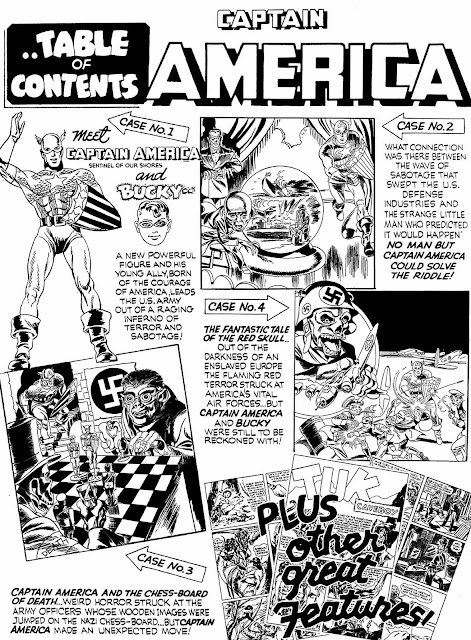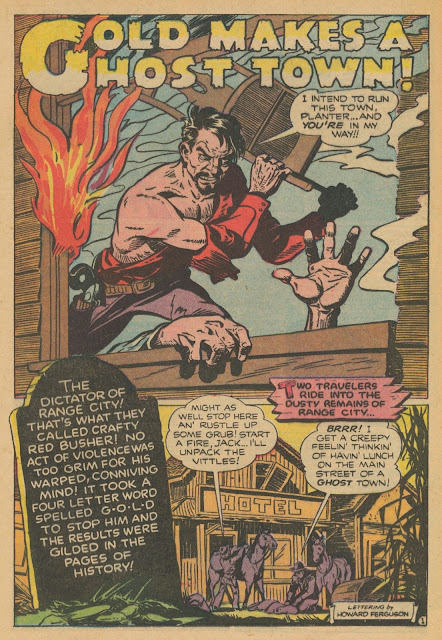
Howard Grant Ferguson was born on July 4, 1895, in Washburn, Wisconsin, according to his World War I and II draft cards. Ferguson’s full name was on his second World War card and Social Security application (at Ancestry.com) which had the birth year as 1896. The application also had the names of Ferguson’s parents, Grant U. Ferguson and Minnie A. Rettie. The St. Clair County, Michigan, Marriage Index, at Ancestry.com, recorded their marriage as December 23, 1891 in Fort Gratiot, Michigan. Grant’s parents were Charles Ferguson and Sally Spalding, and Minnie’s were William L. Rettie and Elsie Ogg.
Two weeks before Ferguson’s birth, the Wisconsin state census was enumerated on June 20. Only the name of the head of the family was recorded in the first column. The next section was Aggregate Population which was sub-divided into White and Colored, each with two columns labeled Male and Female. In the row with Ferguson’s father was the numeral one in the white male and female columns. The female was Ferguson’s mother. The third section was Nativity which was divided into eight countries. The numeral two was in the United States column for Ferguson’s father. The couple resided in the incorporated village of Washburn, Bayfield County, Wisconsin.
Apparently, the Ferguson family resided in Superior, Wisconsin for a period of time. Ferguson’s father was listed in the 1899 Superior city directory: “Ferguson, Grant U agt C St P M & O Ry, [agent with the Chicago, St. Paul, Minneapolis and Omaha Railway] Itasca, r 1st n e corner for Hennepin av”. Ferguson’s maternal grandfather was a clerk at the same railway and had the same address.
Ferguson and his parents have not been found in the 1900 U.S. Federal Census. The 1900 Superior directory said Ferguson’s father had moved to Duluth, Minnesota. The census and directory said Ferguson’s maternal grandfather was in Superior as a watchman with the Itasca Elevator Company. He boarded at the Railroad Hotel.
In 1901, Ferguson’s father, a Northern Pacific Railway clerk, and maternal grandfather, a watchman, were Superior residents at 290 West 4th Street. The same address for them was printed in the Superior Times, March 8, 1902.
The 1902 and 1903 Superior directories listed the address, 1612 Belknap, for Ferguson’s father and maternal grandfather. Their address was 1513 John Avenue in the 1904 directory.
The 1905 Wisconsin state census was enumerated on the first day of June. Ferguson’s maternal grandmother was the head of the household. The census listed Ferguson and his mother, Marion, with the Rettie surname. Ferguson was erroneously recorded as his grandmother’s son. The trio and a servant were Superior residents.
The 1905 Superior directory said Ferguson’s father moved to Duluth, and had this line about his maternal grandfather, “Wm L Rettie, died Jan 12, ’05, age 62”. Ferguson’s maternal grandmother’s address was 1513 John Avenue in 1905 and 1906. The 1907 Superior directory said she moved to Hibbing, Minnesota.
It’s not clear when and where Ferguson’s parents divorced. According to Duluth city directories, Ferguson’s father was a clerk with the Duluth & Iron Range Railroad. He resided on West Superior from 1907 to 1909. From 1910 to 1914 he was on West Fourth Street.
Ferguson’s mother married Arba Hawley, a bookkeeper, who was a Duluth resident. The 1907 city directory listed him and Ferguson’s maternal grandmother at 229 5th Avenue East. Their address in the 1908 and 1909 directories was 190 West Third.
The 1910 census was enumerated in April. It recorded Ferguson, his mother, maternal grandmother, step-father and three-year-old step-brother in Duluth at 131 West 3rd Street.
Ferguson attended the East End School Washington and graduated from the eighth grade on June 16, 1910. The Duluth News Tribune said Ferguson gave a recitation, “International Peace”, at the ceremony.
Ferguson was a freshman at the Duluth Central High School according to the 1911 Zenith yearbook.
The 1911 Duluth directory said Ferguson’s family moved to Detroit, Michigan.
The 1912 Detroit city directory listed Ferguson’s step-father and maternal grandmother at 971 Woodward Avenue. His step-father was a salesman with the United Realty Company. Their address in the 1913 directory was 830 Woodward Avenue.
In the 1914 Detroit directory Ferguson was listed as a student who resided at 931 Jefferson Avenue. The 1915 directory is not available. In 1916 he lived at 43 Center and worked as a stock keeper.
According to the Michigan marriage records at Ancestry.com, Ferguson married Ida Trombley on December 26, 1916 in Detroit. His occupation was clerk.
On June 5, 1917, Ferguson signed his World War I draft card. He, his wife and baby lived at 148 Chene Street in Detroit. Ferguson was employed by the drug manufacturer “Dae Health Laboratory”. Ferguson was described as short, slender build with blue eyes and light-colored hair.
A 1918 Detroit directory said Ferguson was a shipping clerk at “Dae Health Laboratories (Inc)”. One of its major products was Nuxated Iron. The American Medical Association’s critical analysis of Nuxated Iron was published in Nostrums and Quackery.
Ferguson’s address was 919 Jefferson Avenue in the 1919 directory which said he was a clerk. That address was recorded in the 1920 census. Ferguson was a telephone company clerk. His daughter, Virginia, was two-years-and-four-months-old. His mother and her family lived nearby at 931 Jefferson Avenue. The census said Ferguson’s father lived in Duluth. Ferguson’s art career began soon after the census enumeration.
Up to this point there were no indications of Ferguson’s interest in art. Perhaps he saw something during his employment at Dae Health Laboratories or the telephone company that motivated him to pursue art. The Detroit School of Lettering would have been an obvious choice for training. Maybe Ferguson saw lettering books such as Strong’s Book of Lettering (1917), Strong’s Art Of Show Card Writing (1922) and How to Paint Signs and Sho’ Cards (1920).
The 1921 Detroit city directory listed Ferguson as an artist residing at 3105 Jefferson Avenue. He may have been working at one of the eighty advertising agencies listed in Polk’s Michigan State Gazetteer and Business Directory 1921–1922.
Ferguson’s occupation and employer were not stated in the 1922 directory.
In the 1923 directory, Ferguson’s address was 14, 164 East Grand Boulevard. He was employed by the S. M. Epstein Company.
The earliest listing for the S. M. Epstein Company was in the 1922 directory. The company did not exist in directories for 1920 and 1921.
Samuel M. Epstein was profiled in Who’s Who in Advertising (1931). Epstein was born in 1897 in Kansas City, Missouri. (The Social Security Death Index said his birth was September 12, 1897.) He graduated from Kansas City High School and received a B.A. at the University of Michigan. He was married and had one child. Epstein was president of S. M. Epstein Company. He passed away February 11, 1989. The Jewelers’ Circular, January 16, 1924, said the S. M. Epstein Co. specialized in jewelers' advertising.
Presumably Ferguson was lettering and illustrating advertisements, brochures and other printed matter. Maybe he produced showcards for jewelry stores.
The 1924 directory was not available. At some point Ferguson changed jobs.
Ferguson was an artist with the Detroit Ad-Service according to the 1925 Detroit directory. His address was “26, 95 E Palmer av”. Ferguson went to work at the General Necessities Building.
The Detroit Ad-Service was founded by Milton C. Hirschfield. In the 1913 Detroit directory, Hirschfield was an advertising writer. The 1914 directory listed Hirschfield and his Detroit Ad-Service. Michigan-native Hirschfield was born May 5, 1888 and passed away September 25, 1982.
Below is a 1915 advertisement produced by the Detroit Ad-Service (see upper left-hand corner) that was printed in the Canton Repository (Ohio) on May 9.
The 1926 directory was not available. While employed at the Detroit Ad-Service, Ferguson resided at 255 East Grand Boulevard in 1927, then at 15330 Snowden Avenue in 1928.
The Michigan Manufacturer & Financial Record (1927) said the Detroit Ad-Service’s address was 1961 Chicago Boulevard. The Detroit Ad-Service was at 51 Elliot in the 1928 Detroit city directory.
The Detroit Ad-Service produced a number of printed pieces that were copyrighted and may have included work by Ferguson. For example, a 1927 Catalogue of Copyright Entries had these items, “Gift for your baby. (Gerson’s) Fold, sheet” and “Detroit ad-service bulletin no. 909. 5 piece electric waffle set. Sheet”. A 1928 Catalogue’s index listed “Dividend for you” and “Special D. A. S. furniture service”.
Two major events in Ferguson’s life occurred in quick succession. The Michigan Divorce Records, at Ancestry.com, said Ferguson’s divorce was finalized on April 8, 1927 in Detroit. The cause was “extreme cruelty”. Alimony was granted. His daughter was nine-and-a-half years old. The Michigan Marriage Records said his second marriage was eight days later on April 16 in Detroit. The commercial artist’s bride was twenty-year-old French native, Marjorie V. Crawford.
The 1929 city directory was not available. Ferguson, his wife and daughter have not been found in the 1930 census. The census said Ferguson’s mother, maternal grandmother, step-brother and sister-in-law were in Detroit at 134 East Grand Boulevard. The 1930 directory has a “Howard Ferguson”, an operator, at 180 East Grand Boulevard, who may or may not be Ferguson the artist. Ferguson was not listed in Detroit directories from 1931 to 1939. Wherever Ferguson was, his third-wife-to-be was in New York City.
The 1930 census said Lillian Edith Stanton, a law office typist, lived with her parents, Arthur and Lillian, and sister, Marjorie, in Jamaica, Queens County, New York. The eighteen-year-old married Henry Smith Lockwood on June 27, 1930, according to the New York, Marriage Certificate Index at Ancestry.com. The Long Island Daily Press, June 28, 1930, said “Following the ceremony the young couple left on a honeymoon trip touring Canada. They will reside in Munsey Park, Manhasset.” It’s not known how long their marriage lasted.
The 1940 census had a category “Residence, April 1, 1935”, and both Ferguson and Edith were in Detroit in 1935. How Ferguson met her is a mystery, as well as when and where they married. The census said Ferguson (line 1) and Edith lived with her parents and sister in Jamaica, New York at 173-43 103rd Road. Ferguson’s occupation was artist doing “private work”. His father-in-law was a chauffeur at a bakery (line 79).
Apparently, Ferguson was in New York City in the late 1930s. With an advertising background, Ferguson probably looked for work at art studios and advertising agencies. He found a livelihood in booming comic book industry.
Joe Simon, in his autobiography, Joe Simon, My Life in Comics (2011), said
…in 1939 Charles [Nicholas] was doing work for us, and we brought in a letterer, too.At the 1998 San Diego Comicon, Mark Evanier interviewed Joe Simon.
The letterer’s name was Howard Ferguson, and he was the best ever in the business. Howard was from Detroit. His wife left him, and he came to New York with his daughter Elsie, who was his pride and joy. She was maybe eight or nine years old at the time. Howard’s mother was an “America Firster,” one of the people who pressured the government not to get involved with World War II. The group had been organized by a Yale student. Its ranks included future President Gerald Ford and Sargent Shriver, the man who founded the Peace Corps. Howard didn’t agree with the Firsters, so he had a lot of heated arguments with his mother, and held a lifelong grudge against her.
Howard was a chain smoker who drank coffee all day. When we got his pages, there were always coffee stains and cigarette burns on them. But he was unlike any other letterer in the business. One time I brought Will Eisner in to see for himself. He came up to the studio.
“Will, look at this,” I said. Howard was working on a page, and usually when you letter, you do penciled guide lines first, so your lettering can fit neatly within the lines. But Howard didn’t bother with this extra step.
“Wow,” Eisner said. “I’ve never seen anybody do that before.” The lettering was straight as can be. I mean, Ben Oda was great, but nobody could do the work that Howard Ferguson did.”
Mark Evanier: What do you remember about Howard Ferguson?In the book, Carmine Infantino: Penciler, Publisher, Provocateur (2010), Jim Amash asked Infantino about Ferguson.
Joe Simon: Howard Ferguson was the greatest letterer and Ben Oda was the second greatest letterer. Howard Ferguson was a middle-aged man from Detroit, and like everybody else in the business he was living hand-to-mouth. He came here, he got divorced; he brought his daughter, Elsie, to live with him. I think his wife left him, he said. He was the only letterer I ever heard of that could draw in a straight line without doing the penciled lines. Just like a machine and very, very creative. He was a big part of our effort, of our creativity. He was great with logos and designs, everything. We'd just rough out the stuff and give it to Howard, and he'd give us back beautifully-inspired, inked lettering and logos. The only problem was that there'd be coffee stains on every page. (laughter) He'd drink like 30 cups of coffee a day.
Yes! He was a crusty, old bastard. [chuckles] He was one hell of a letterer. He was a fat, older, German guy—very tough. Jack used to say, “Don’t pay attention to him. He’s all right.” He smoked cigarettes like a train. He had a daughter to take care of because his wife left him. He had a chip on his shoulder all the time, but he could letter. His logos were the best!In the Jack Kirby Collector #34, Infantino said to Amash, “Ferguson. He was unbelievable. Great letterer. Cranky, very cranky, old guy. You say hello, he would say, ‘Go to hell….’”
Two contemporaries of Ferguson were Joe and Sam Rosen. In Comics Interview, #7, January 1984, Joe explained to David Anthony Kraft how he and his brother Sam got into comics.
My father had a fruit store in Coney Island. In 1940, one of the customers he was well acquainted with mentioned that her son was an artist for Timely—the company that’s now Marvel Comics. The son, George Mandel, is now a novelist. This was during the Depression. My father asked her if her son could maybe do something for Sam. So Mandel introduced Sam to the big letterer of the time, Howard Ferguson, who was working for both Timely and Fox. Fox was Ferguson’s lesser account, and soon he gave it to Sam. Sam got me my first lettering job, at Fox, doing The Blue Beetle.
Ferguson began lettering for Simon and Kirby in 1939. Maybe he had been lettering comics earlier and was known to other publishers and studios.
Ferguson’s lettering has been examined by Harry Mendryk here, here and here, and by letterer Todd Klein here. An incomplete chronological list of Ferguson’s credits are at the Grand Comics Database. His Captain America credits, among others, are missing. Presumably Ferguson did the finished art for the Captain America logos that changed after the first issue.
When Ferguson signed his World War II draft card on April 27, 1942, he was living at 110-33 207 Street in Hollis, Queens County, New York. His employer was “Simon-Kirby Productions” in Tudor City, New York City. Ferguson named his wife, Edith, as the person who would always know his address. Ferguson’s description was five feet four inches, 148 pounds, with blue eyes and brown hair.
Below is a record of payment to Ferguson for lettering in the unpublished Stuntman number four that included a 12-page story pencilled by Jack Kirby.
Who’s Who of American Comic Books 1928–1999 shows Ferguson worked for other studios and several publishers. Below are samples of Ferguson’s lettering.
Ferguson’s lettering has been examined by Harry Mendryk here, here and here, and by letterer Todd Klein here. An incomplete chronological list of Ferguson’s credits are at the Grand Comics Database. His Captain America credits, among others, are missing. Presumably Ferguson did the finished art for the Captain America logos that changed after the first issue.
When Ferguson signed his World War II draft card on April 27, 1942, he was living at 110-33 207 Street in Hollis, Queens County, New York. His employer was “Simon-Kirby Productions” in Tudor City, New York City. Ferguson named his wife, Edith, as the person who would always know his address. Ferguson’s description was five feet four inches, 148 pounds, with blue eyes and brown hair.
Below is a record of payment to Ferguson for lettering in the unpublished Stuntman number four that included a 12-page story pencilled by Jack Kirby.
Who’s Who of American Comic Books 1928–1999 shows Ferguson worked for other studios and several publishers. Below are samples of Ferguson’s lettering.
Captain America Comics #1, March 1941
(The complete story is at Timely-Atlas-Comcs.)
Later issue of Captain America Comics
Clue Comics v2 #1, March 1947
Headline Comics #23, March-April 1947
Ferguson’s lettering credit appeared on the splash page of “Gold Makes a Ghost Town” in Cow Puncher Comics #7 in 1949. It was reprinted in Jesse James #15, October 1953, without Ferguson’s credit (below). In 1958 the story was reprinted in Western Action #7 with Ferguson’s lettering credit (below).
Ferguson took a short break to travel to Detroit where his step-father, Arba Hawley, was murdered during a robbery as reported in the Grosse Point News (Michigan), November 15, 1945. (see column 1). The Detroit News, November 10, 1945, said, in part, “Hawley leaves a wife, Marion, and a son, Arba Wallace Hawley, 38, of Kalamazoo. A stepson, Howard Ferguson, of New York, had been visiting the Hawleys and was to have returned to New York Friday.”
The Comics Journal #134, February 1990, published Gary Groth’s interview with Kirby who mentioned Ferguson’s passing.
Joe [Simon] did a lot of the business. Had I stayed at Joe’s side all the time while Joe operated we’d have never gotten any pages done. We got an office in Tudor City — I worked in the office with a letterer, Howard Ferguson. When Howard passed away there was another letterer to replace him....
The Comic Book Makers (2003) said “Ferguson was with Simon and Kirby for many years, until the day coffee and cigarettes finally ‘done him in.’”
I was unable to confirm the date of Ferguson’s passing. Ferguson filled out a Social Security application which was transcribed at Anestry.com. It has his birth information, parent’s names and Social Security number. A note, dated December 7, 1983, said “Name listed as Howard Grant Ferguson”. Apparently, Ferguson’s death was not reported to the Social Security Administration. At the Grand Comics Database, I believe Ferguson’s lettering credits, excluding reprints, end in 1957. The New York, Death Index has a Howard Ferguson, age 63, who passed away April 18, 1957, in Queens, New York. He might be Ferguson the artist and letterer.
* * * * *
It’s not known if Ferguson had any children with his third wife, Edith. The New York, Death Index at Ancestry.com recorded the 1946 passing of an Edith Ferguson, age 34, in Queens, New York, but it’s unclear if she was Ferguson’s wife.
Simon mentioned Ferguson’s young daughter, Elsie, who was from his second marriage. Apparently she was named after Ferguson’s maternal grandmother. Elsie was not counted with Ferguson in the 1940 census, so she was with her mother, Marjorie. There was an Elsie Ferguson, in 1943, who was a junior at Eastern High School in Detroit. Her whereabouts and status are not known. Detroit city directories have a Marjorie Ferguson, at different addresses, for the years 1935, 1937, 1939 and 1941. The last three directories said she was a typist at the Del Auto Inter-Insurance Exchange. Marjorie and Elsie were not found in the 1940 census. Marjorie was born around 1907 and, in the Social Security Death Index, she may be the Marjorie Ferguson who passed away in 1981 in California.
Ferguson’s first wife, Ida, and daughter, Virginia, were in Detroit according to the 1930 census. They lived with Ida’s step-parents. Ida married David Whitney in 1934. Their marriage ended in divorce in 1941. Ida passed away on December 11, 1990 in California. In the 1940 census, Virginia lived with her maternal step-grandparents, Frank and Rosanna Fleming, and their three children. Not long after the census enumeration Virginia married Orville A. Reinholz (1918–2004). The birth of their son, Brent Dennis, was announced in the Detroit Free Press, May 30, 1943. The birth of a second son, Randy Wayne, was reported in the Detroit News, November 18, 1946. (Ferguson’s grandsons are now in their seventies.) Virginia passed away March 14, 2000 in California.
According to the 1940 census, Ferguson’s mother, Marion, and step-father, Arba, were living alone in Detroit. As mentioned earlier, Arba died in 1945. According to the Detroit Free Press, Marion passed away December 20, 1947. Ferguson’s step-brother, Arba Wallace Hawley, was married (see entry number 11016-27). He passed away in 1997. The 1930 census recorded Ferguson’s mother and maternal grandmother, Elsie, in Detroit with his step-brother’s in-laws. The date of Elsie’s passing is not known.
The last known location of Ferguson’s father, Grant, was Duluth, Minnesota according to the 1930 census. When and where he passed away is not known.
Unfortunately, no obituaries were found that might have shed more light on Ferguson.